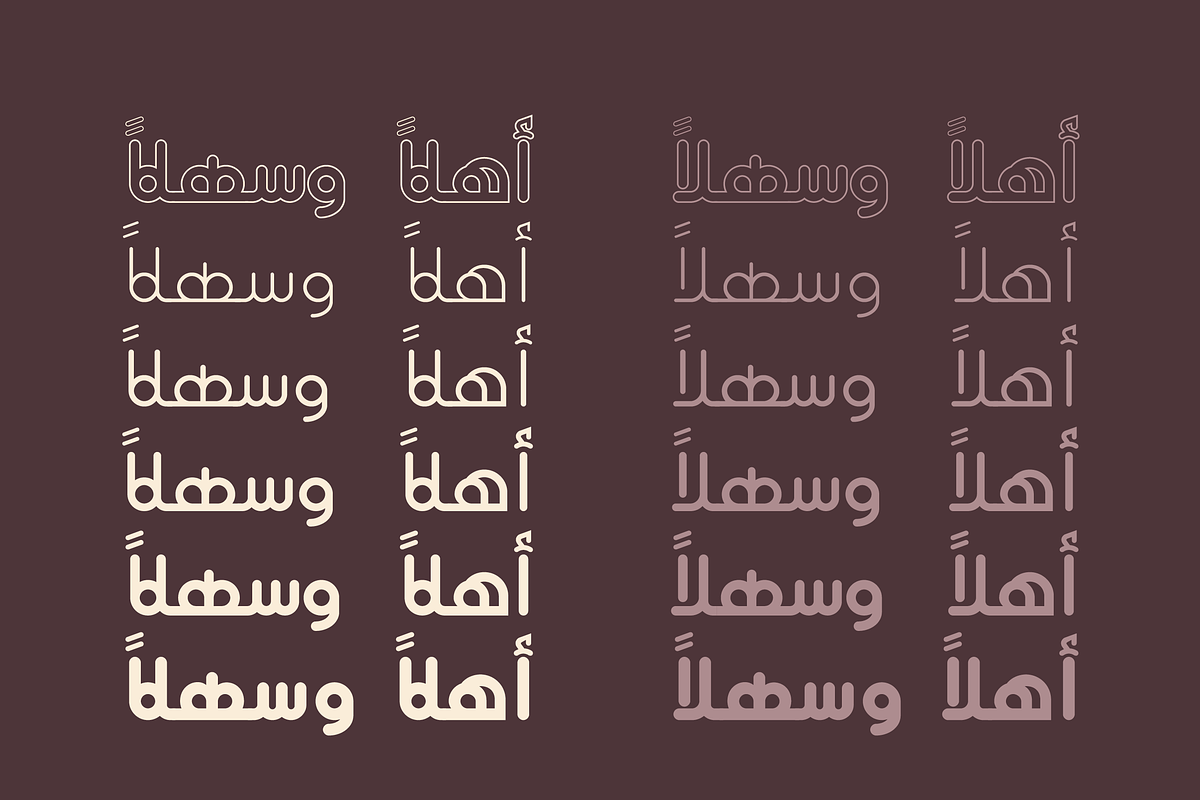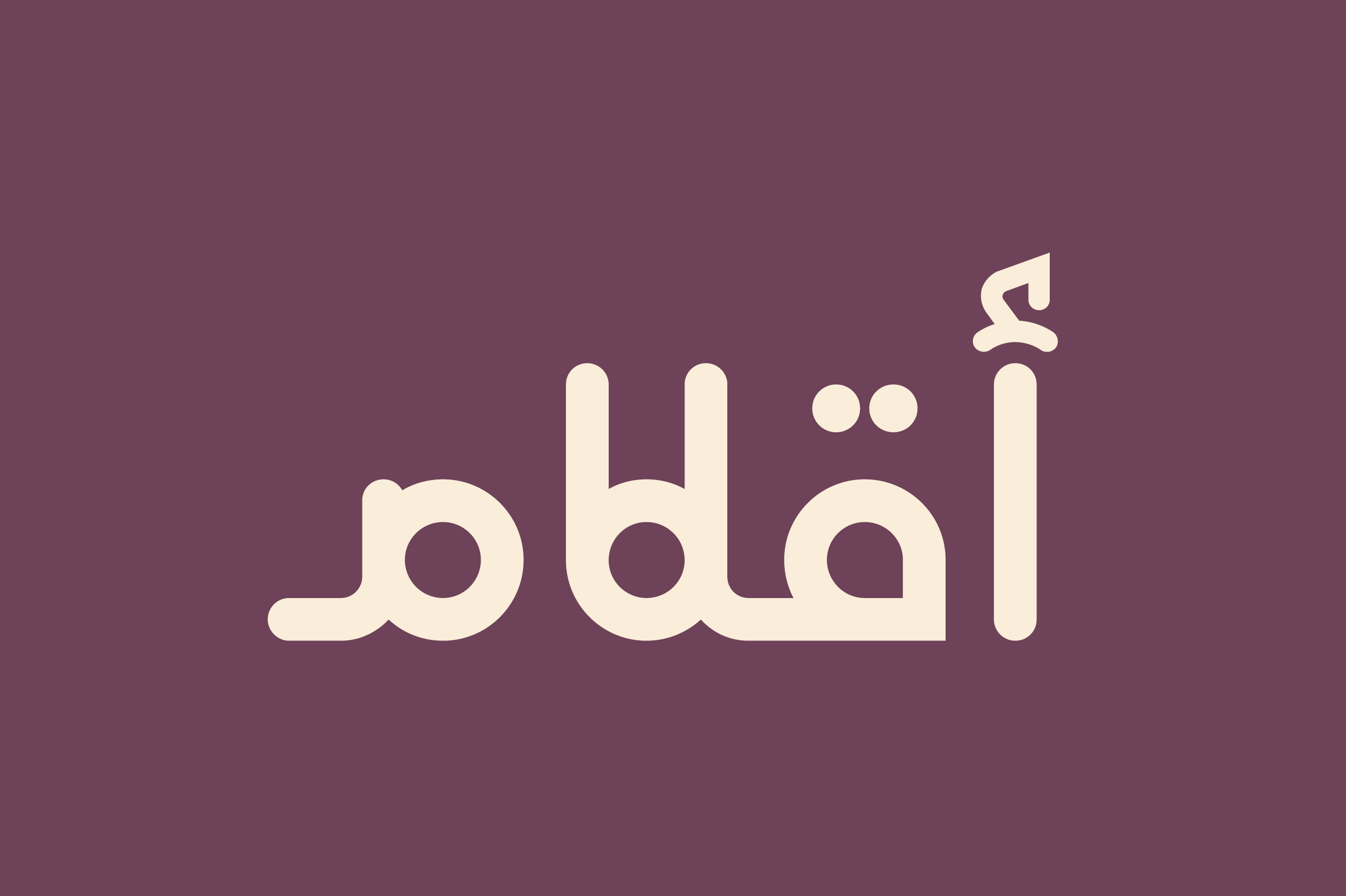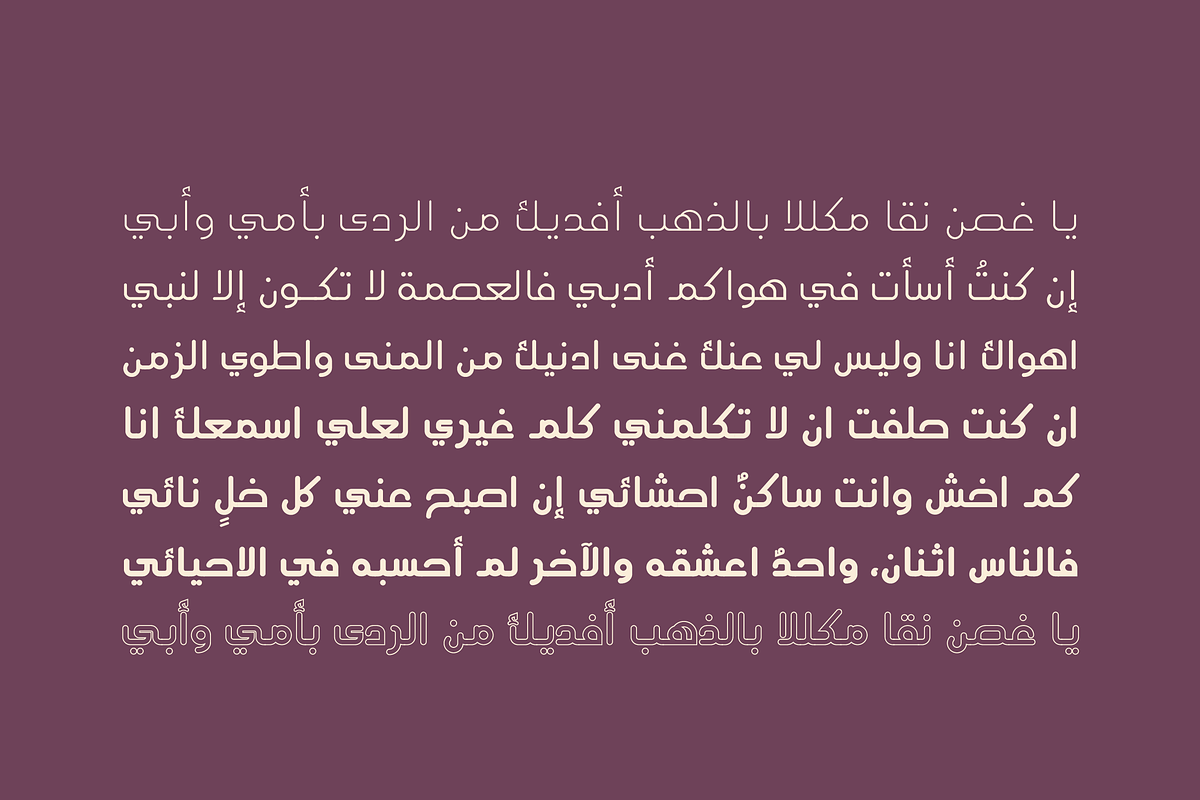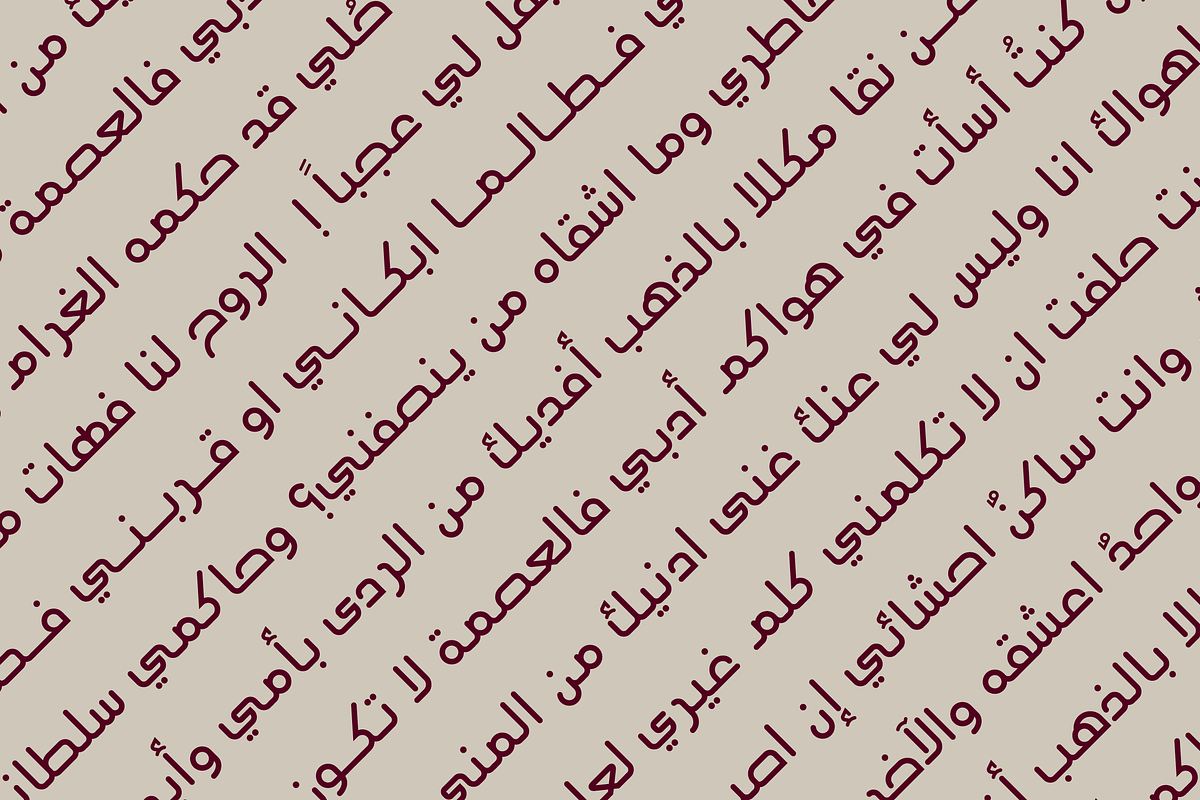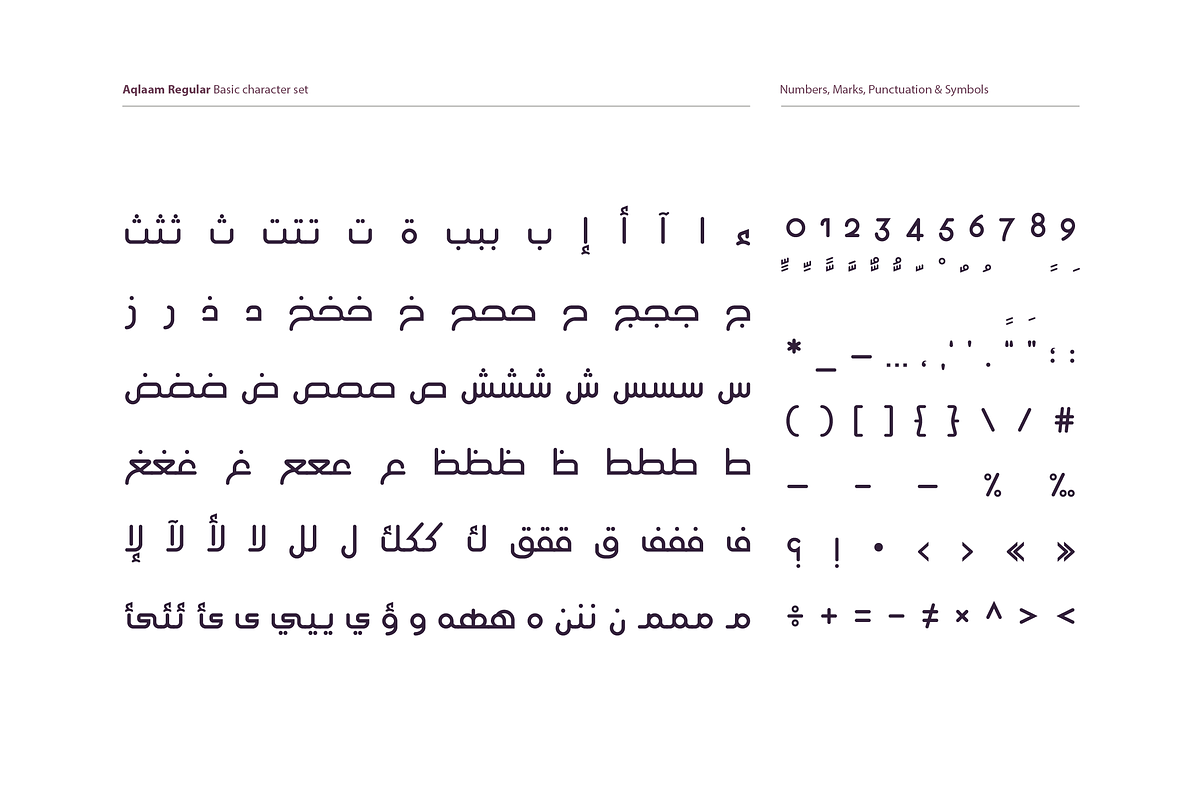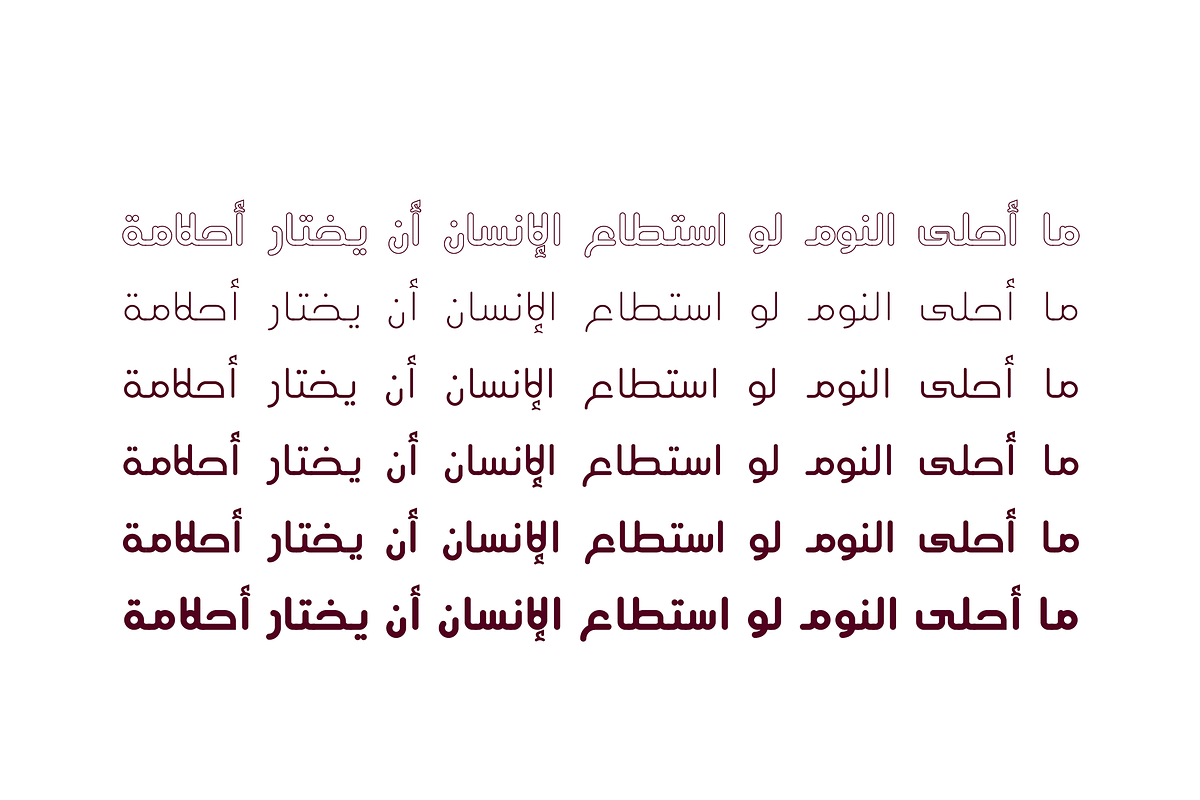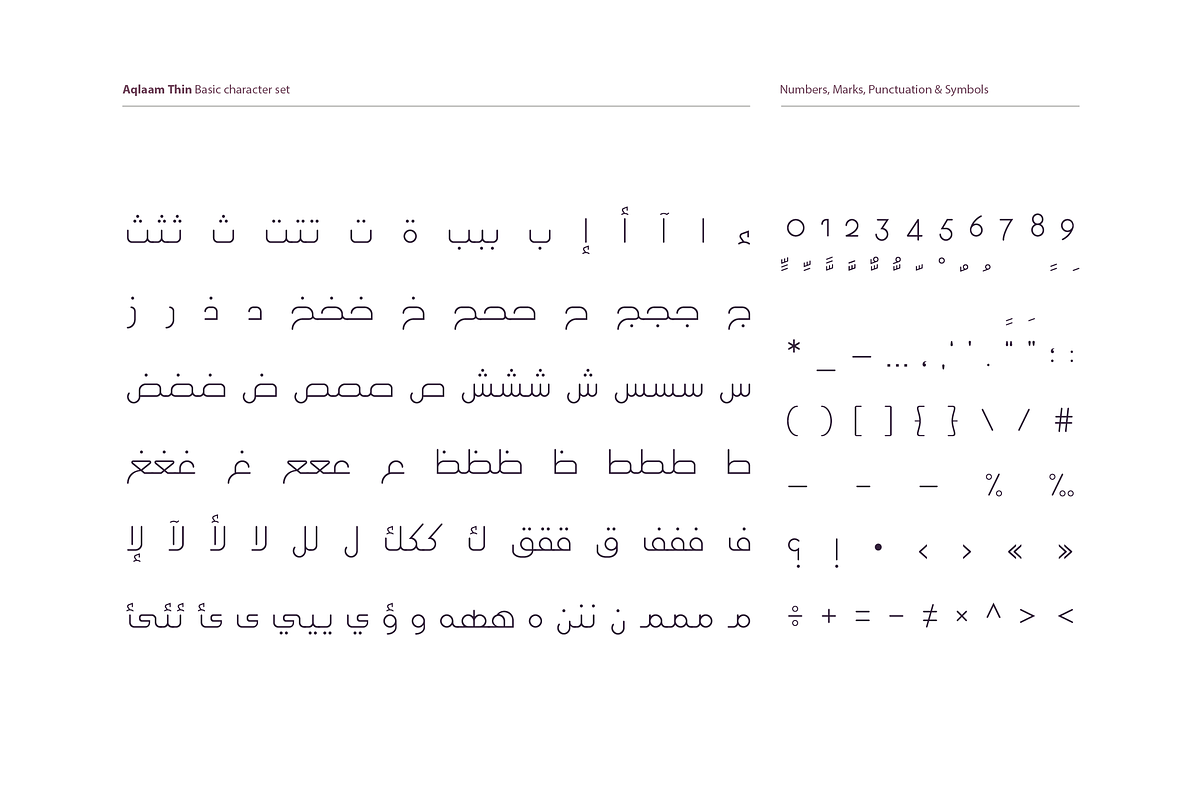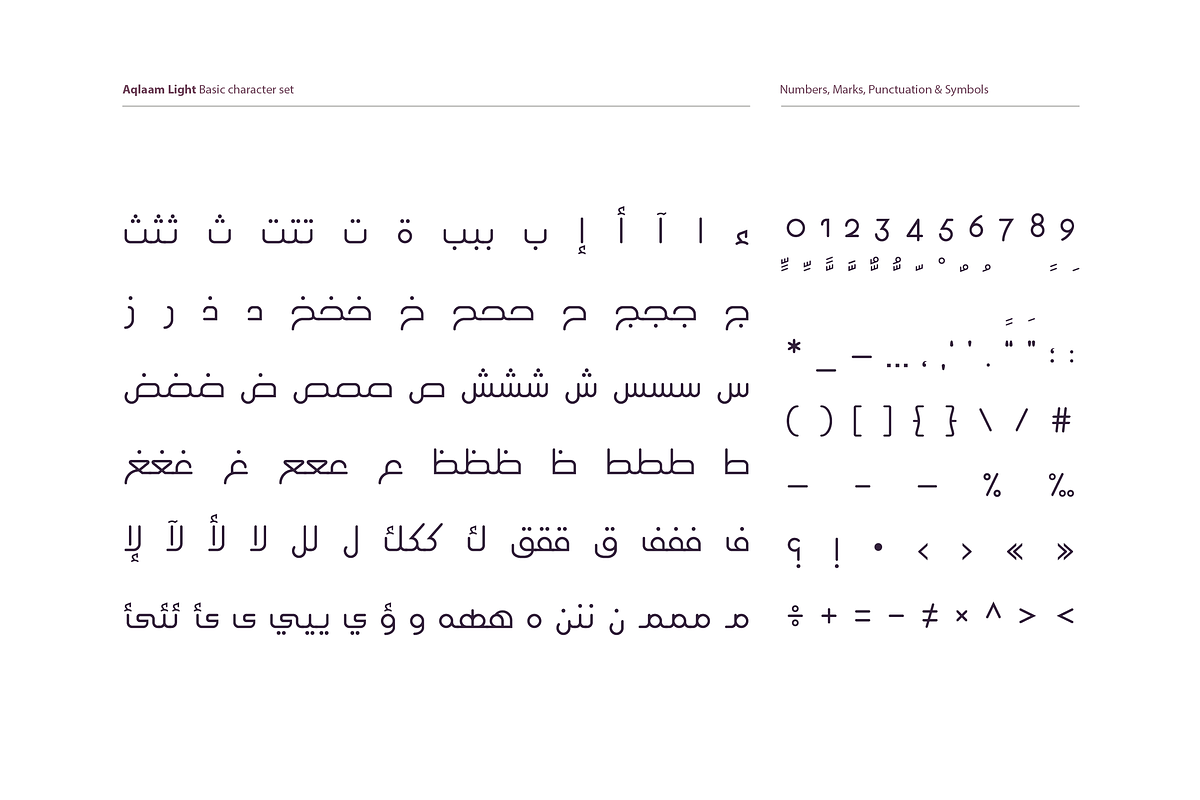
Aqlaam - Arabic Typeface
Aqlaam is an Arabic typeface with rounded letterforms. It is mainly designed for public advertising and publication and it comes in 6 different weights; thin, light, regular, medium, bold and outlined bold.